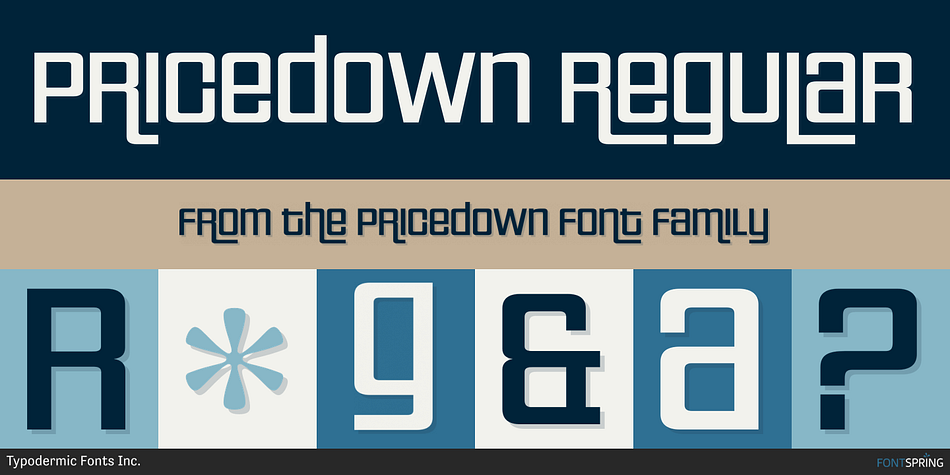
Pricedown Regular
Pricedown is a display font family. This typeface has nine styles and was published by Typodermic Fonts Inc.
Looking for a typeface that brings retro flair to your designs? Look no further than Pricedown! This typeface is a modern interpretation of Pinto Flare, a display typeface from the early 1970s.
Pricedown has a boxy, retro design that’s perfect for adding a touch of nostalgia to your work. It’s been used in a variety of applications over the years, including as the logotype for the US game show, The Price is Right, and Technos Japan’s Tag Team Wrestling video game in 1986.
In addition to its eye-catching design, Pricedown also features some fun interlocking character combinations when used in OpenType savvy applications. For example, when the letter “H” is followed by the letter “I”, a swash tail will tuck under the “I”, adding an extra flourish to your text. And if you prefer a more streamlined look, you can easily turn off this feature in your application.
With nine different weights to choose from, Pricedown is a versatile typeface that allows you to skillfully attenuate its impact, making it perfect for a wide range of graphic design projects. So whether you’re designing a logo, a poster, or anything in between, Pricedown is sure to add a touch of retro style to your work.